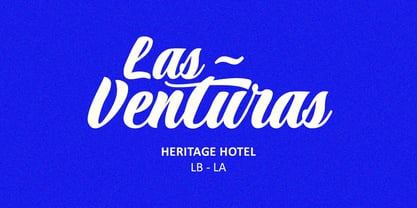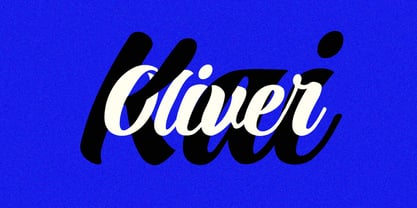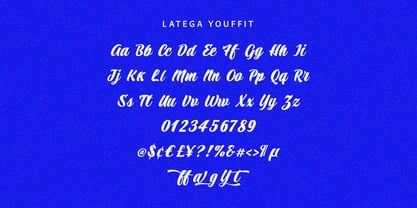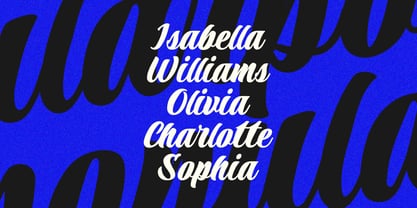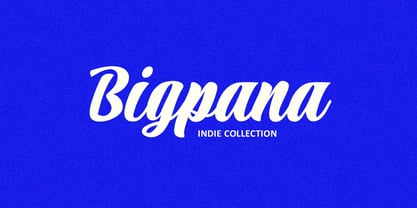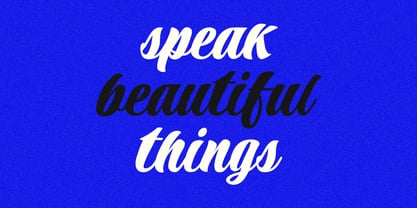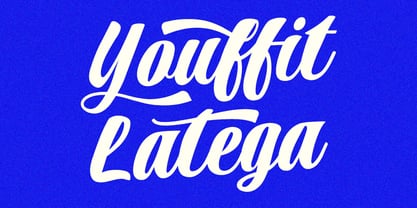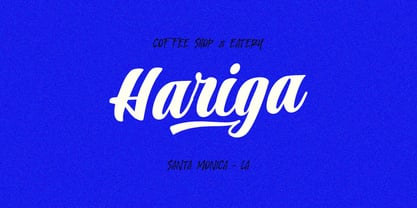
MC Latega Youffit
by Maulana Creative
The MC Latega Youffit Font Family was designed by Gilang Maulana and published by Maulana Creative. MC Latega Youffit contains 1 styles. More about this family
Latega Youffit is a powerful and energetic handmade script font that perfectly captures the spirit of retro advertising, modern branding, and casual elegance. Its confident, flowing lines and thick strokes make it stand out instantly, while the smooth connections ensure legibility and style. Whether you're creating a punchy logotype, an eye-catching header for social media and more, Latega Youffit adds a dynamic, handcrafted feel that resonates with audiences worldwide. This font is designed to be loud, proud, and undeniably unique.
Designers: Gilang Maulana
Foundry: Maulana Creative